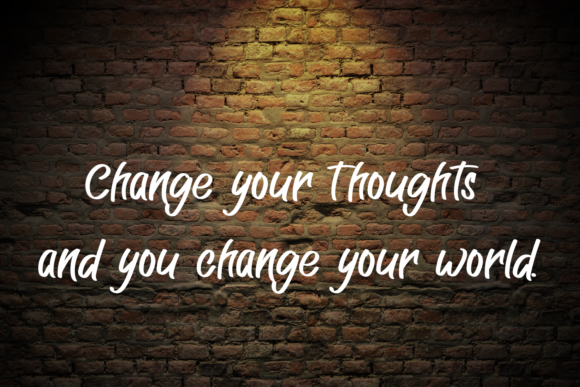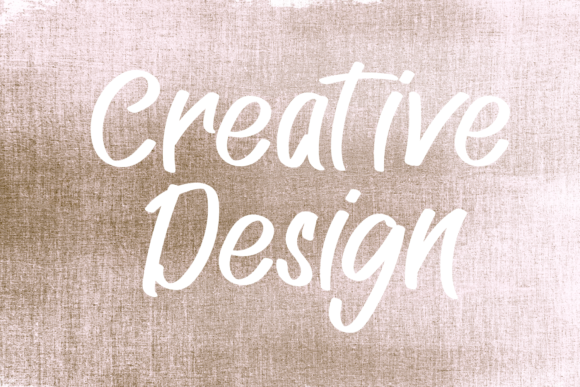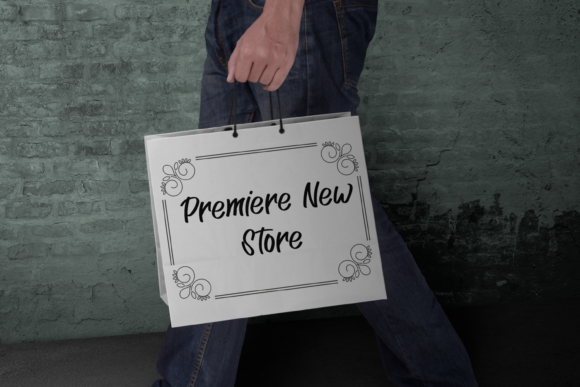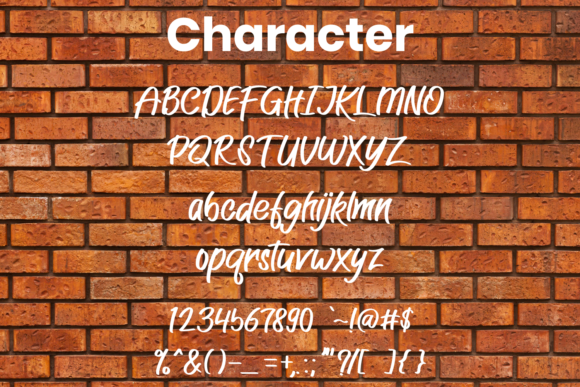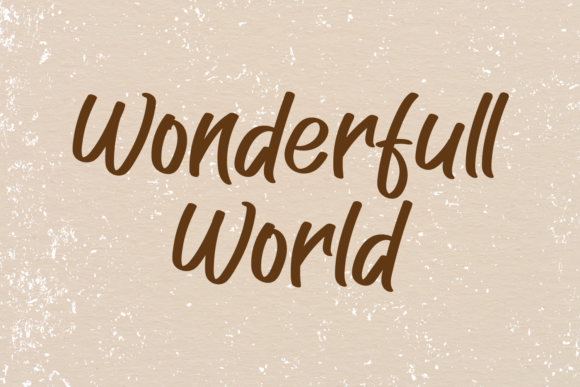
Introduction to Dinamica Star Font
Remember the thrill of getting lost in a creative project, surrounded by scraps of paper, glue, and colorful pens? It’s a moment we all cherish, and one that sparks the imagination. As designers, we’re constantly seeking that perfect combination of style and functionality to bring our ideas to life.
That’s where the Dinamica Star Font comes in – a free, high-quality design resource that adds a touch of warmth and personality to any project. With its casual, handwritten feel, this font is perfect for crafting, digital designing, presentations, or greeting cards making. Its transparent background makes it easy to use and customize, ensuring that your creative vision shines through.
Whether you’re a seasoned designer or a hobbyist, the Dinamica Star Font is a valuable addition to your toolkit. Its versatility and high-quality design make it an essential resource for any creative project, and its free download means you can get started right away.
Key Features of Dinamica Star Font
- High-quality, free font for creative projects, ideal for designers and artists looking for a unique design resource.
- Transparent background, allowing for easy layering and manipulation in design software.
- Includes a range of glyphs and characters, making it suitable for various creative projects, from logos to typography.
- Designed to be highly scalable, with a resolution of up to 300 DPI for crisp and clear rendering.
- Unique, star-shaped design element adds a touch of whimsy and creativity to any project, setting it apart from more traditional fonts.
Honest Review: Dinamica Star Font
As a designer, I’m always on the lookout for high-quality design resources to elevate my creative projects. The Dinamica Star Font has caught my attention, and I’m excited to share my honest review.
What works well: ✨ I love the unique and playful style of this font, perfect for adding a touch of whimsy to your designs. The Dinamica Star Font is incredibly versatile, making it suitable for a wide range of creative projects. Plus, it’s available for free download, making it a fantastic resource for designers on a budget.
What’s more, the font has a transparent background, which allows for seamless integration with your design elements. The quality is top-notch, ensuring a crisp and clear display in any size or resolution.
- ✨ Unique and playful style
- ✨ Versatile for various creative projects
- ✨ Transparent background
- ✨ High-quality display
However, there are some limitations: ⚠️ The font may not be suitable for formal or professional designs, as it can come across as too playful or casual. Additionally, some users may find the font’s style a bit too busy or overwhelming.
Overall, I’m impressed with the Dinamica Star Font, and I would definitely recommend it to designers looking for a fun and creative design resource. With its unique style, versatility, and high-quality display, it’s a great addition to any design toolkit.
Tips for Getting the Most Out of Dinamica Star Font
Use the Dinamica Star Font in combination with other design elements to create a high-quality design. Experiment with different font sizes and styles to add visual interest to your design. You can also use the font to create a sense of movement and energy in your design.
The Dinamica Star Font is a versatile design resource that can be used in a variety of creative projects, including graphic design, digital art, and web design. It’s perfect for designers who want to add a touch of elegance and sophistication to their designs. You can download the font for free and use it in your next creative project.